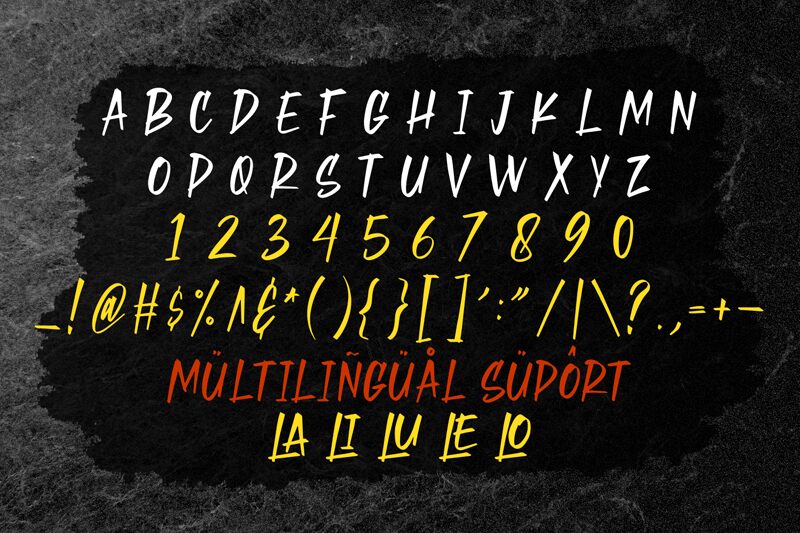
Slamed font by Forberas Club is a bold and expressive handwritten script running across high contrast, flowing lines. The letters slant gracefully, evoking an energetic mood with natural curves and lively personality. Informal in appearance, Slamed strikes a playful balance across the visual spectrum.
Use Slamed font to create funky headings, captivating social media content, game titles with flair, striking scrapbook pages or even putting together amazing mugs and t-shirts for your friends and family. You can even apply this to more professional settings like branding, logos or graphic design - imagine icons that pop! Whether digital design assets or print work: let creative ideas shine!